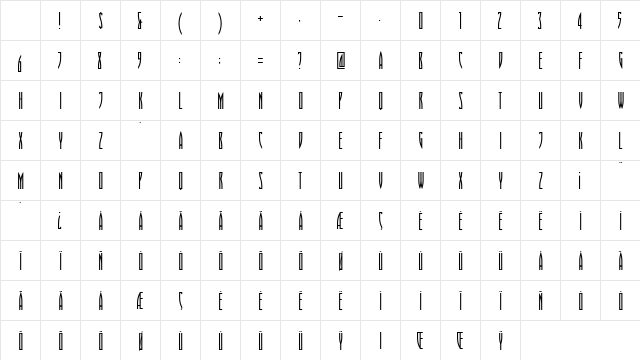
Playoff is built around its visual character rather than neutral utility - its distinctive forms are designed to make an impression at display sizes.
Font Pairing: Pair with a clean neutral sans-serif for body copy to let Playoff's character lead without overwhelming the composition.
Pro Tip: Use Playoff exclusively at display sizes - it was designed to be seen, not read at length. Let a neutral companion handle body copy.